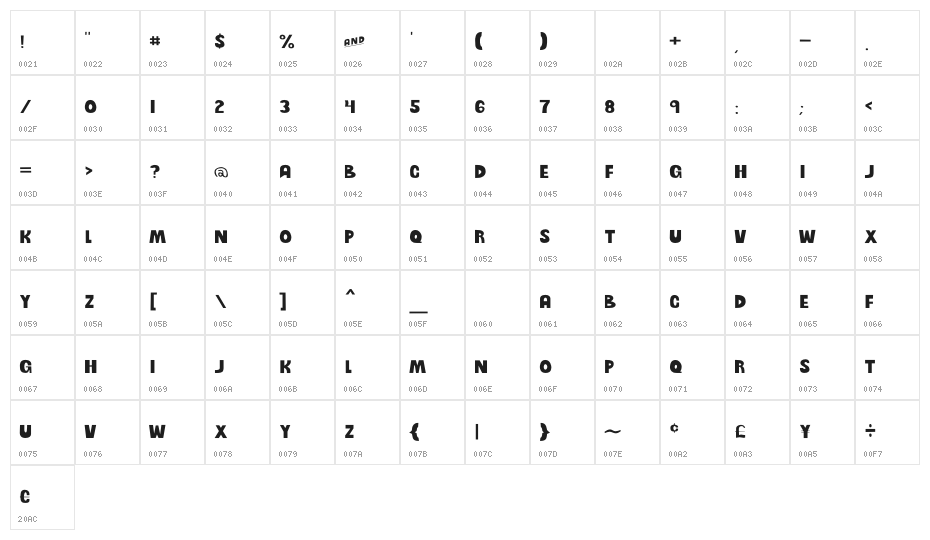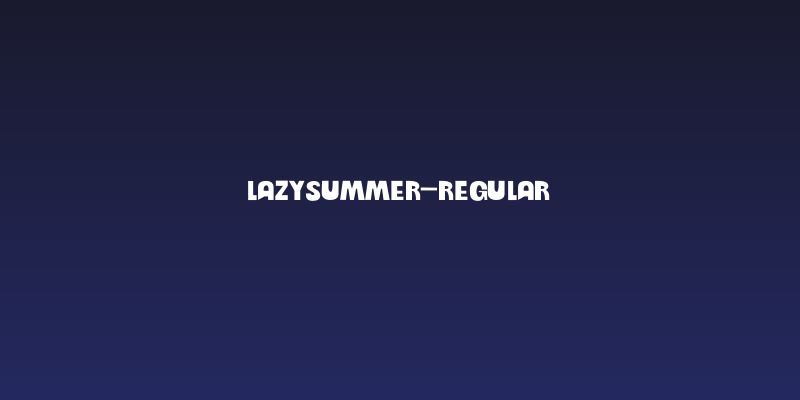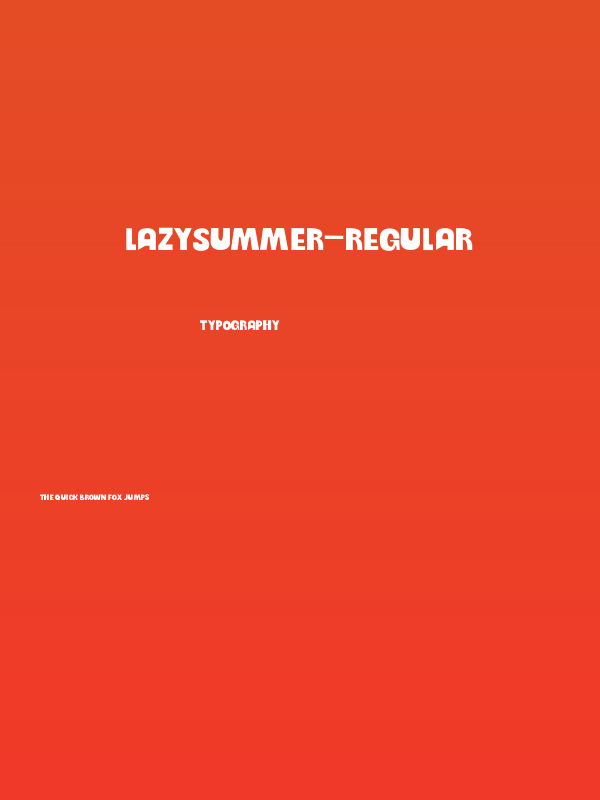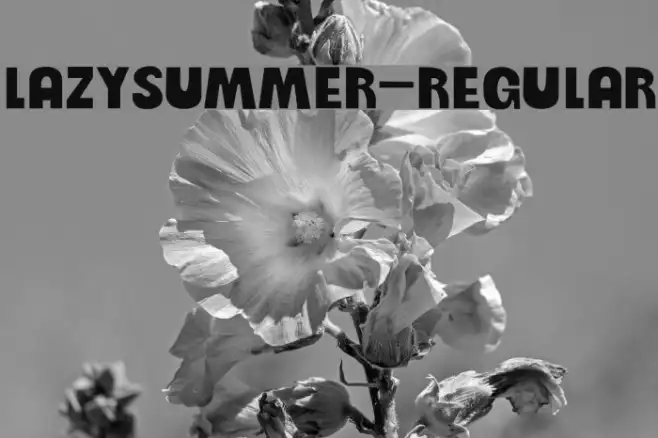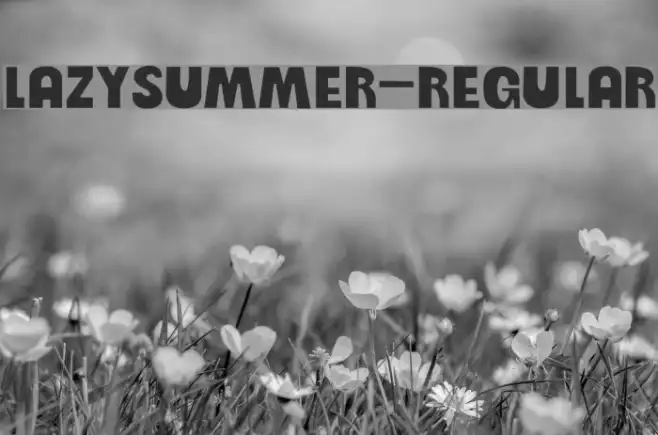
LazySummer-Regular Font
LazySummer-Regular Description
This font features bold, rounded characters with a playful and relaxed aesthetic. The uppercase letters are uniform in height, while the lowercase letters maintain a consistent style, enhancing readability. The numbers are well-proportioned, matching the overall boldness of the alphabet. Special characters are creatively designed, adding a unique flair to the font. The strokes are thick and consistent, giving the font a strong presence. This style is ideal for projects that require a fun and engaging look, such as children's books, casual branding, or summer-themed designs.
| Overall Style | Playful, Casual |
| Proposed Projects | Ideal for children's books, casual branding, summer-themed designs, and playful advertisements. |